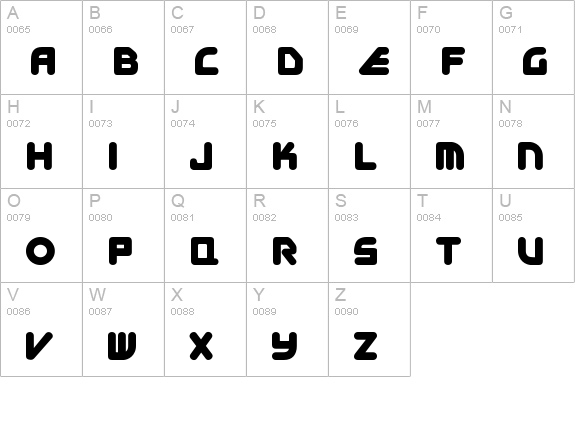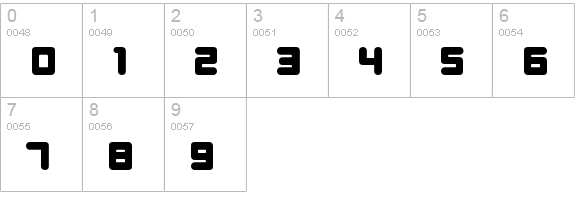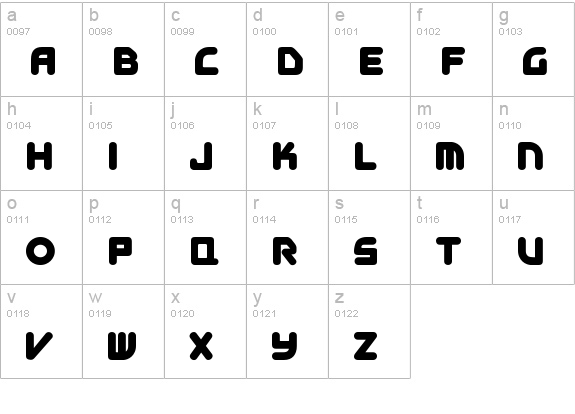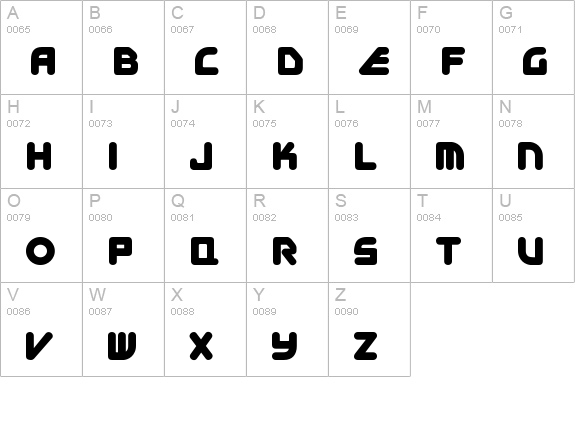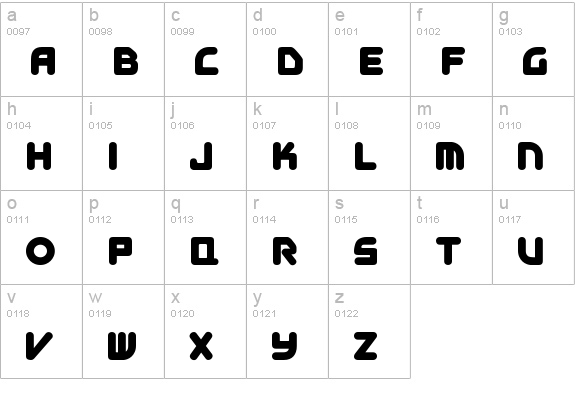
Introducing E4 Digital Final font, a modern and stylish typeface that is perfect for adding a touch of sophistication to your design projects. This versatile font is suitable for various applications, including branding, advertising, editorial design, and more. E4 Digital Final font features a clean and sleek design, with sharp lines and geometric shapes that exude professionalism and elegance. Its well-balanced letterforms ensure legibility, making it ideal for both headings and body text. What sets E4 Digital Final font apart from other fonts is its availability as a free download. Yes, you heard it right! This incredible font is freely available to download at FontsMarket.com, making it accessible to designers, creatives, and enthusiasts alike. Whether you are a professional designer looking to enhance your typography game or a novice seeking a high-quality font for personal projects, E4 Digital Final font is the perfect choice. Its versatility and usability make it a go-to font for various design needs. With its extensive character set, E4 Digital Final font supports multiple languages, allowing you to communicate your message effectively across different cultures and regions. Its stylish and contemporary appearance will instantly captivate your audience, leaving a lasting impression. Don't miss the opportunity to elevate your designs with the E4 Digital Final font. Download it for free at FontsMarket.com and unlock a world of creative possibilities.